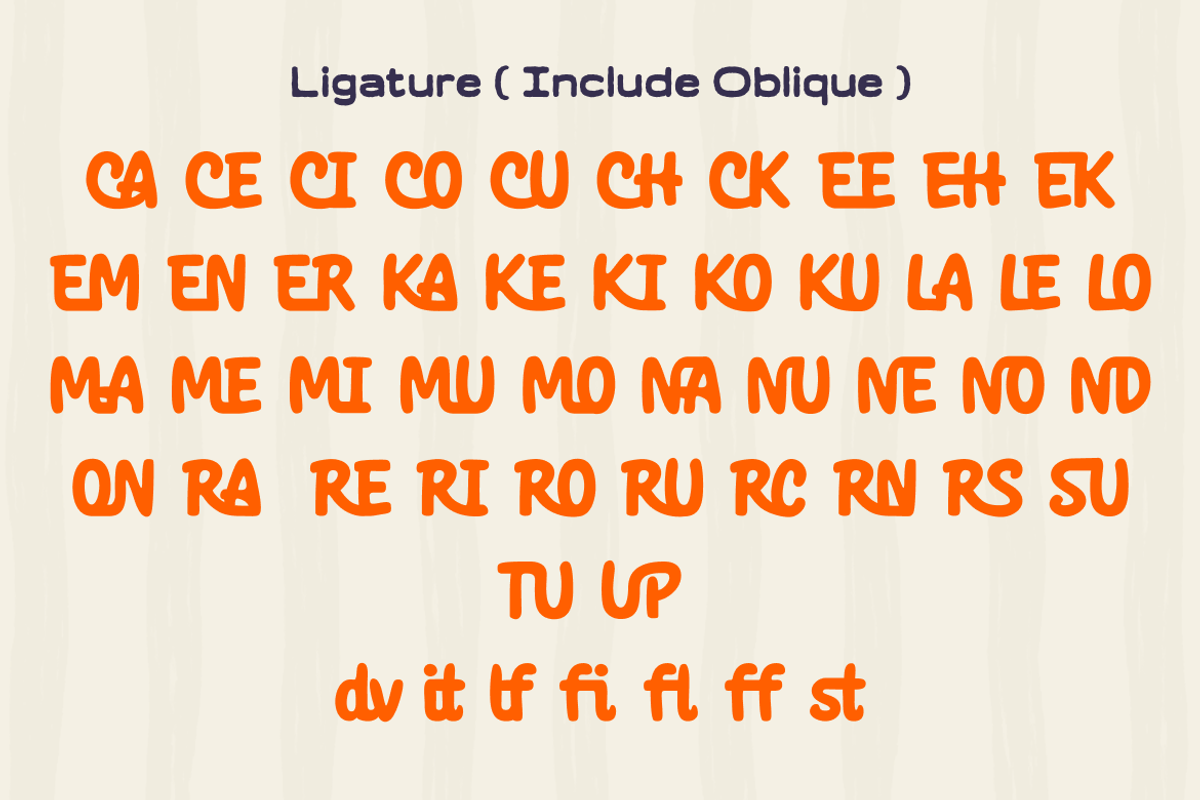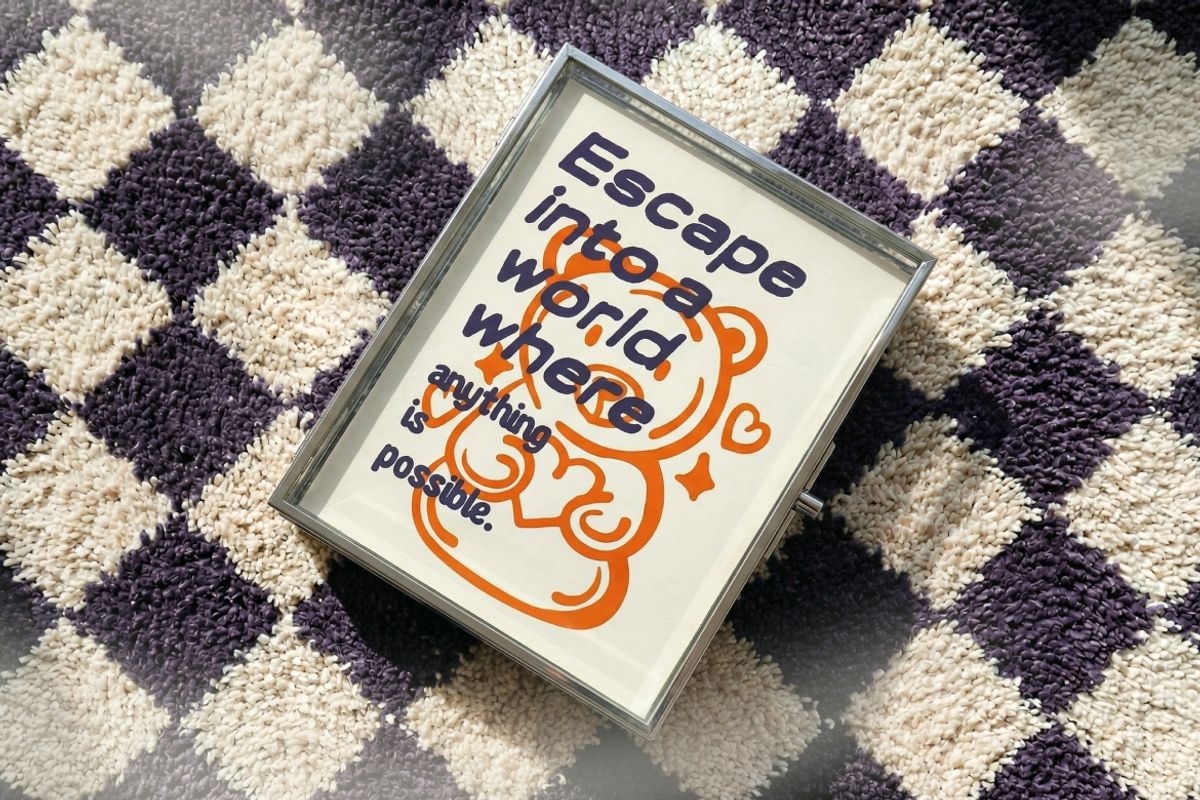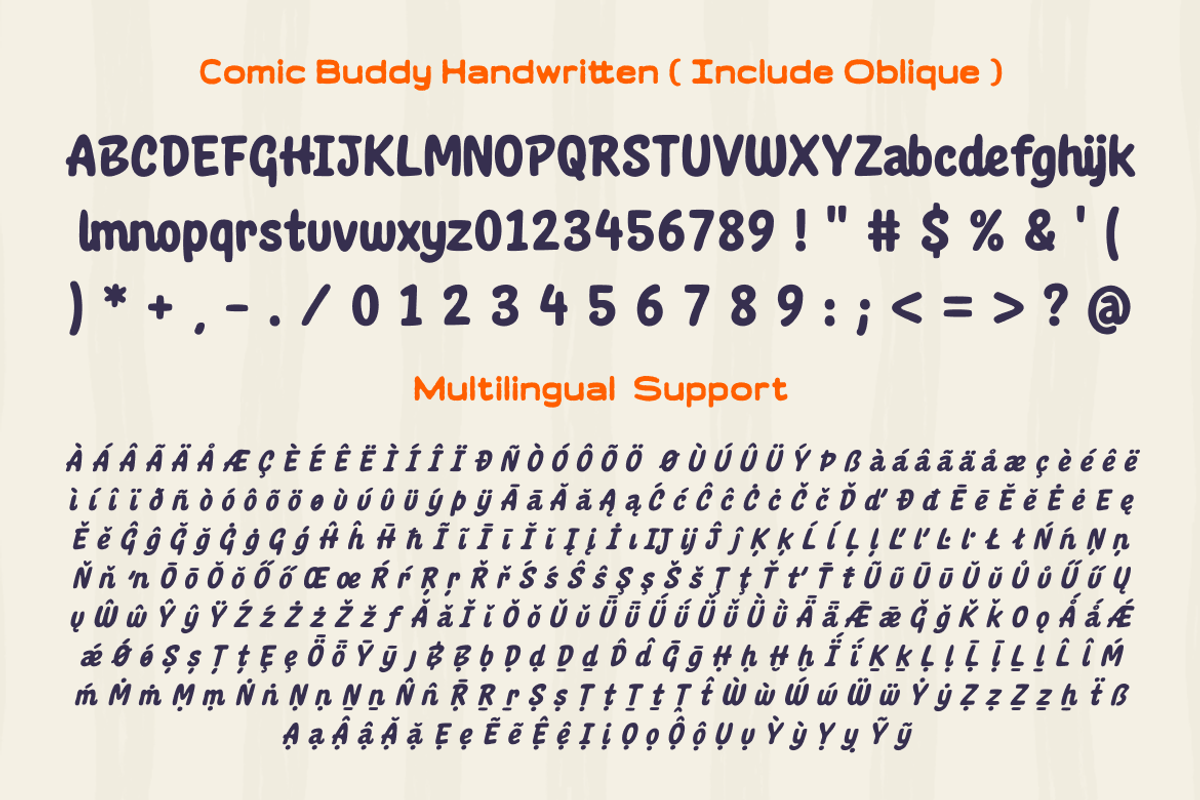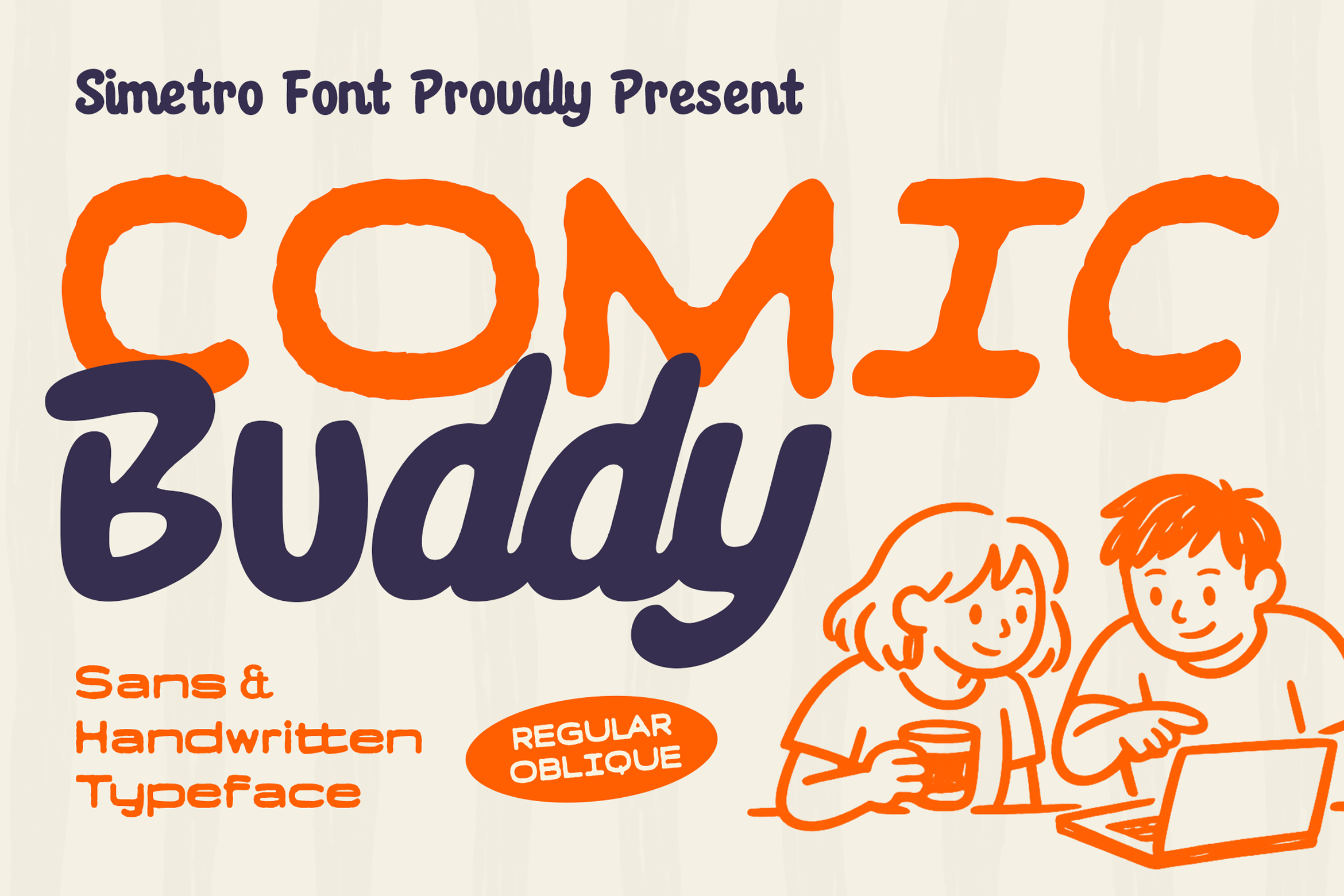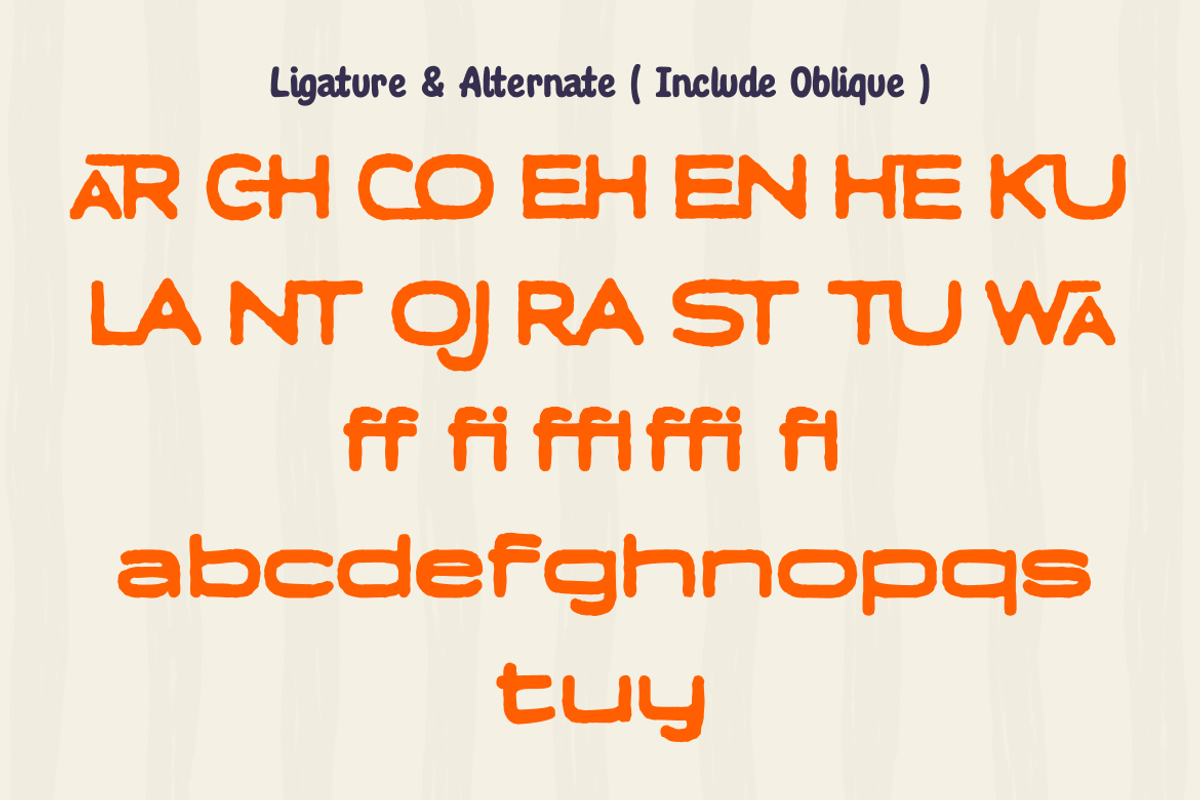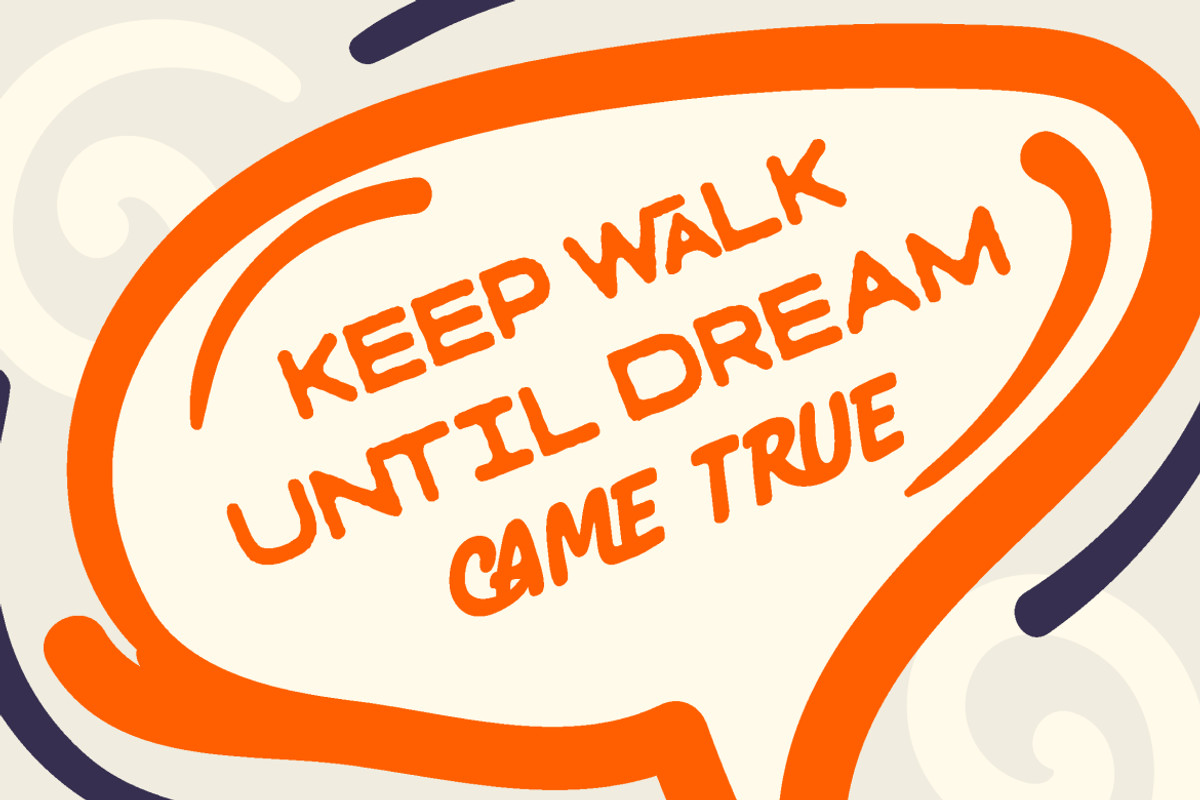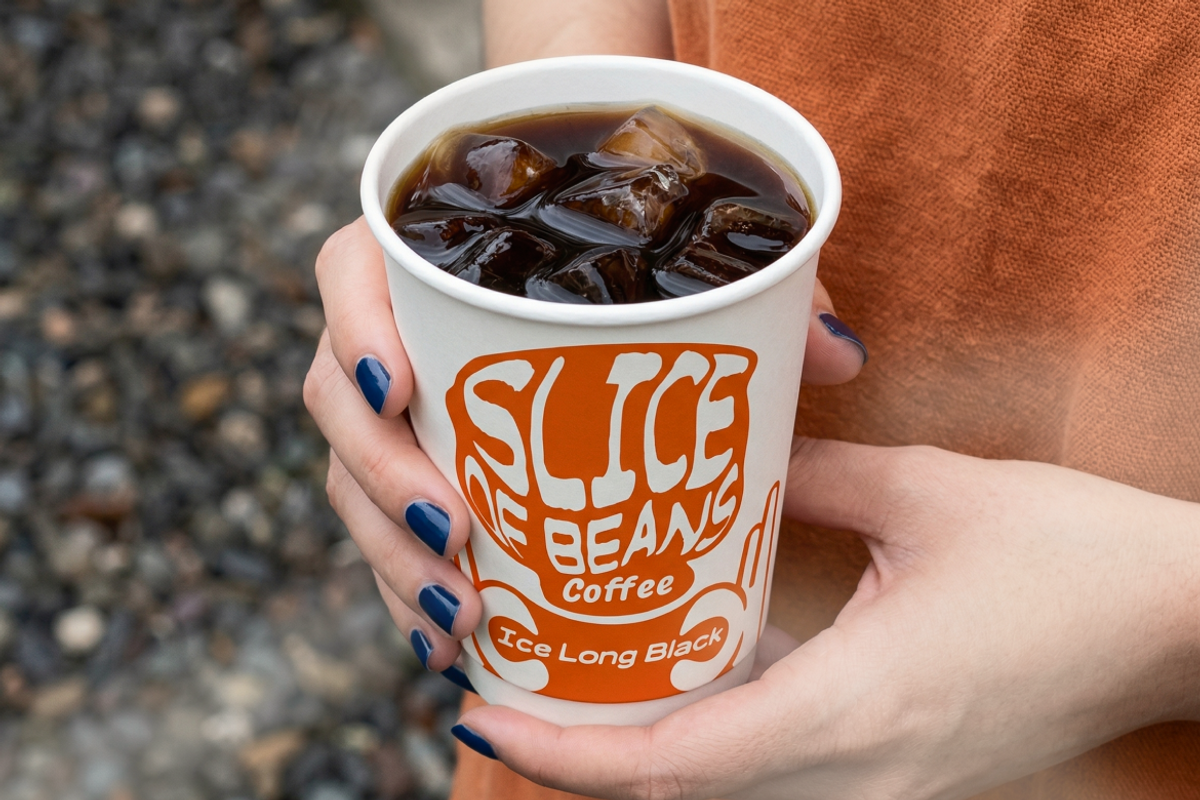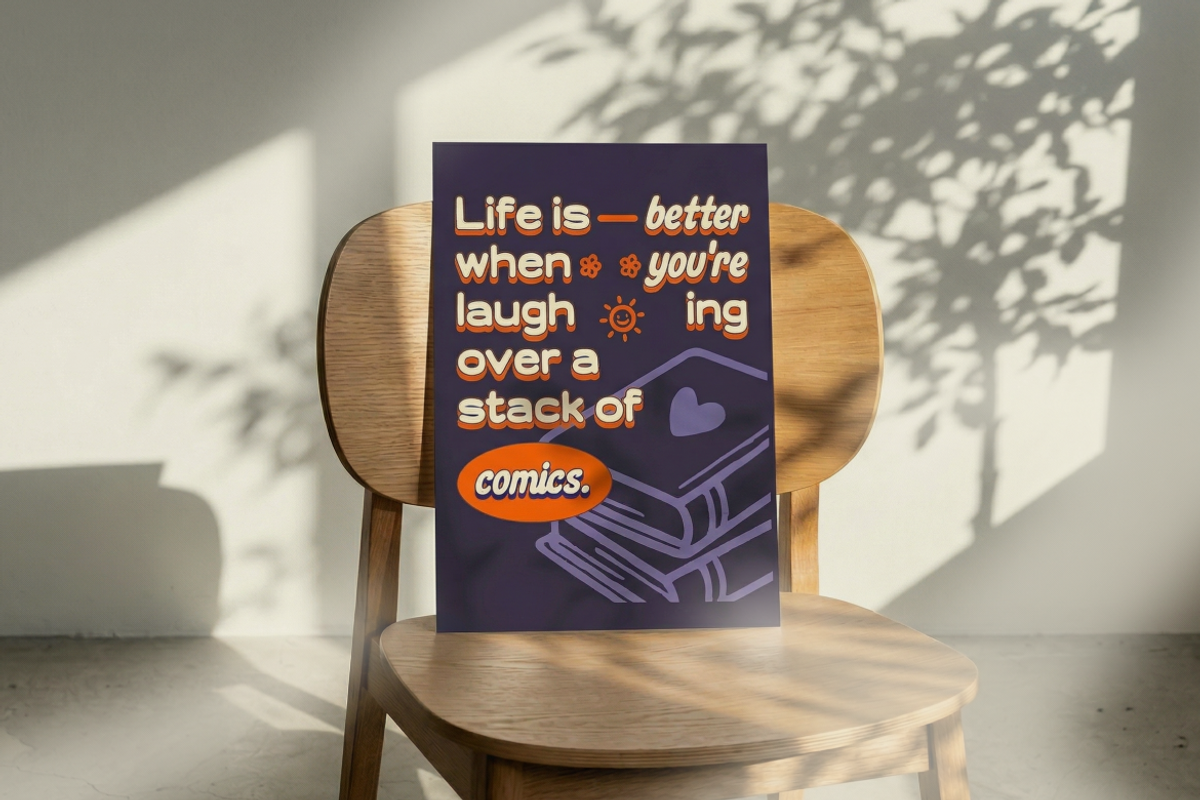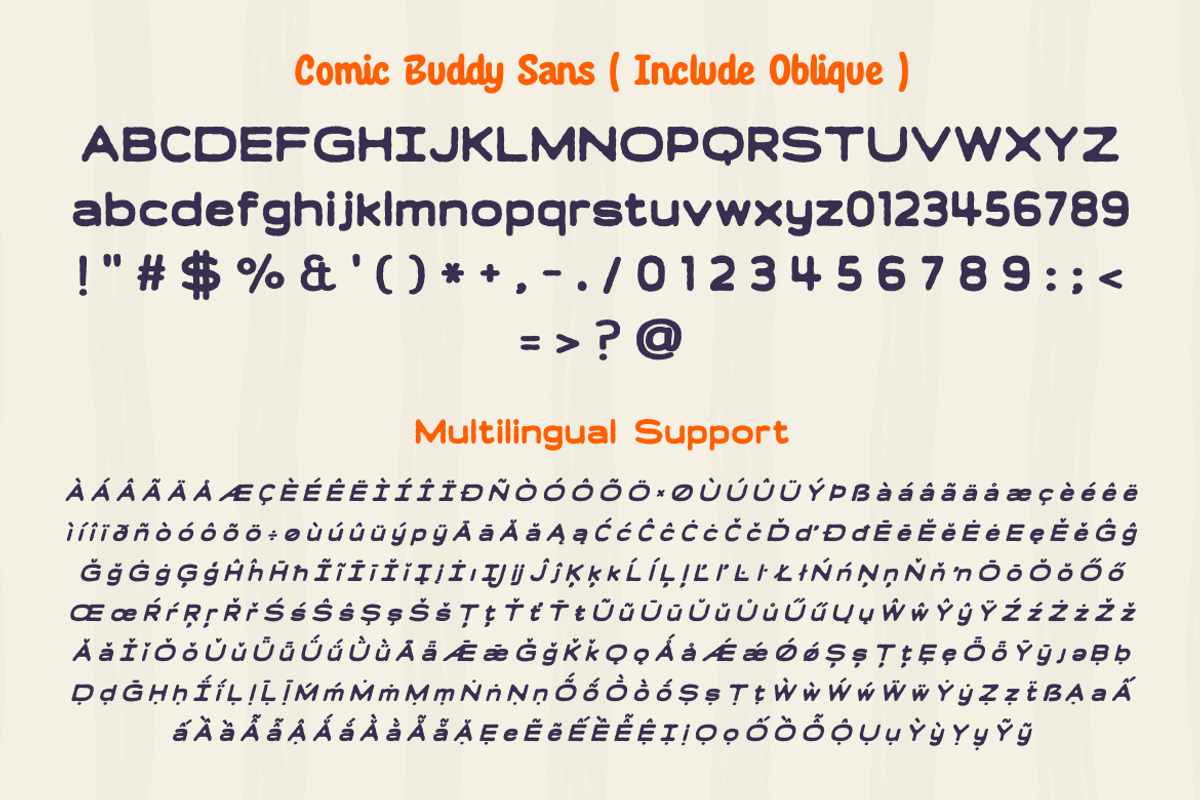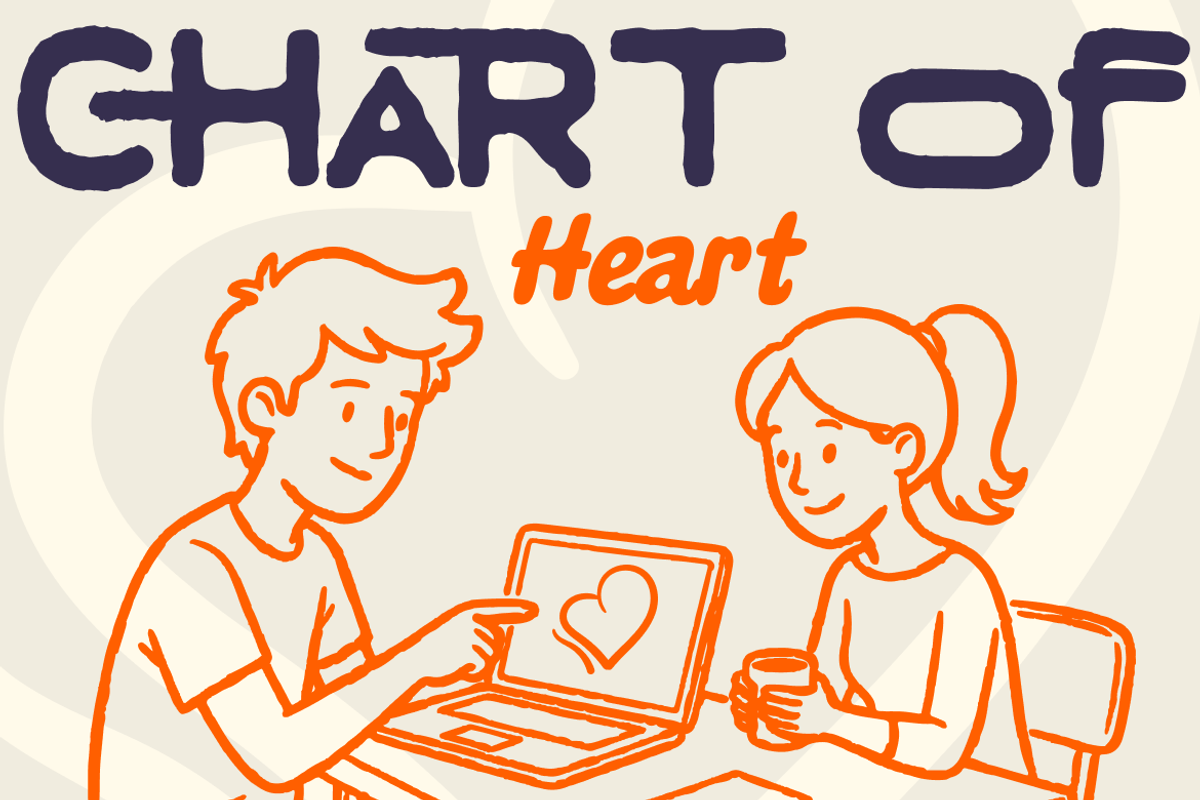
Sans & Handwritten for Comic Font
Comic Buddy is a playful and friendly sans & handwritten typeface that brings a cheerful, hand-drawn touch to your creative work. With its warm, rounded characters and natural flow, Comic Buddy captures the fun of a comic strip while maintaining high readability—perfect for a lively, approachable, and eye-catching aesthetic, and social media graphics.
Designed to be both expressive and versatile, Comic Buddy comes in both Regular and Oblique styles, including a full set of uppercase and lowercase letters, numerals, and punctuation. Whether you're working on a children's book illustration or a dynamic marketing presentation, this font adapts beautifully to both print and digital projects.
Add a sense of friendliness and creativity to your design with Comic Buddy—a font that blends the simplicity of a sans-serif structure with the charm of a handcrafted script.
- Regular & Oblique styles
- Numbers (0–9)
= Basic punctuation & symbols
- Extensive multilingual support (up to 90+ languages)
- Includes a wide variety of Ligatures and Alternates\